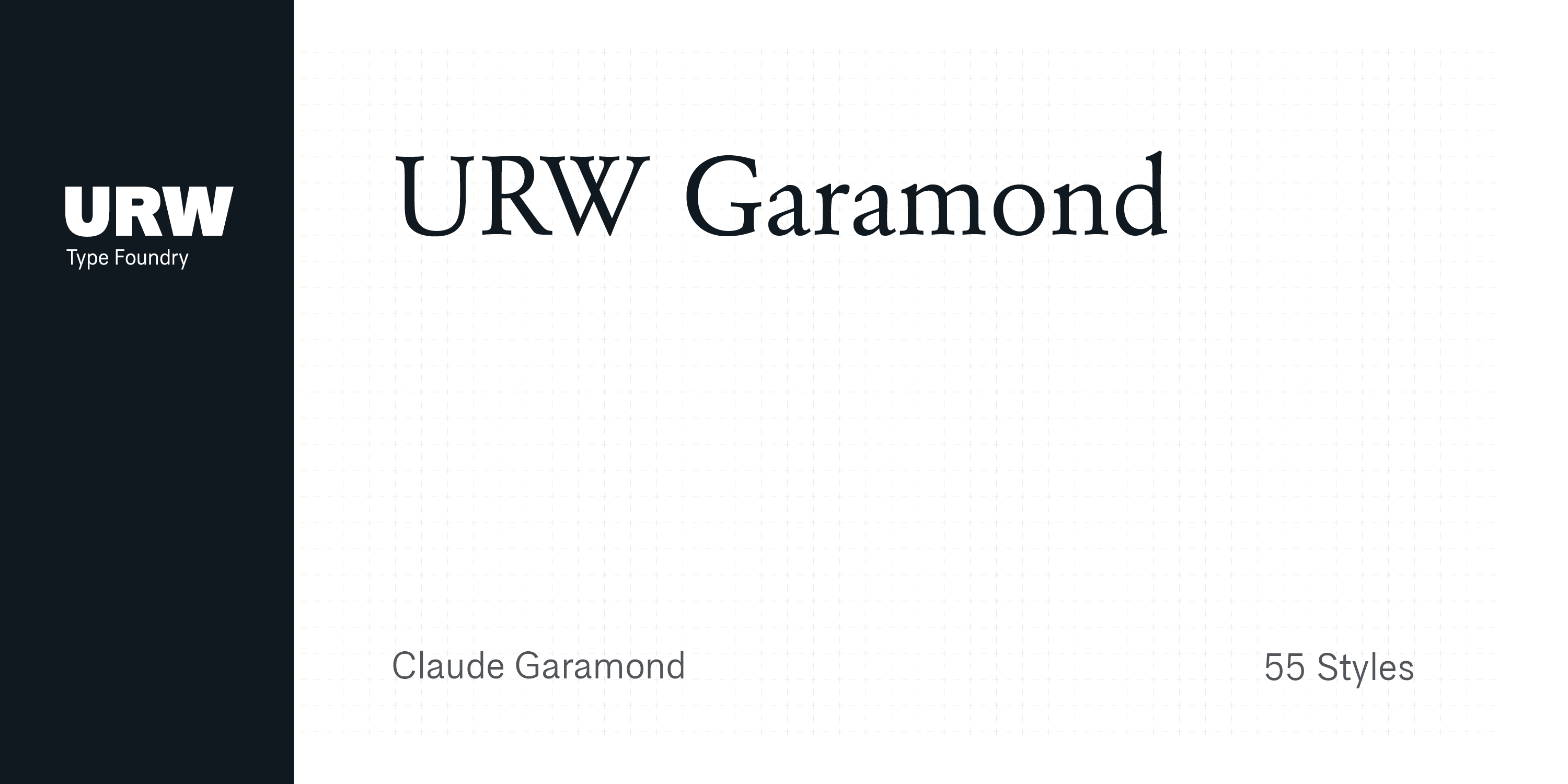
The Garamond Font is perfect for book publishing, literary magazines, academic journals, historical documents, classical music programs, museum catalogs, fine art publications, and elegant editorial projects that require timeless sophistication with exceptional readability and scholarly authority.
What makes the Garamond Font Free Download so exciting is its remarkable legacy as one of history's most influential and enduring typefaces, representing over 500 years of typographic excellence and refinement. This font captures the essence of Renaissance humanism with its distinctive slanted crossbars, elegant proportions, and organic character shapes that create exceptional reading comfort. Its proven performance across centuries of publishing makes it the gold standard for extended reading applications, combining classical beauty with modern functionality that continues to set the benchmark for scholarly and literary typography.
The Garamond Font family includes Roman, Italic, Semibold, and Bold weights, each maintaining the font's signature classical elegance and superior legibility characteristics. The collection features authentic period proportions with expert character sets including small capitals, old-style figures, and extensive ligature options. This comprehensive font system ensures designers have access to professional typography that honors centuries of printing tradition while meeting contemporary publishing standards and digital requirements for scholarly and literary applications.
Essential for publishers, academic institutions, cultural organizations, and creative professionals seeking typography that conveys intellectual authority and timeless elegance. The font's classical heritage makes it indispensable for scholars, editors, and design teams developing premium editorial content that requires both credibility and beauty. Download Garamond Font Free Download today and connect your projects with typography's greatest legacy through this exceptional typeface that has defined elegant publishing for over five centuries.